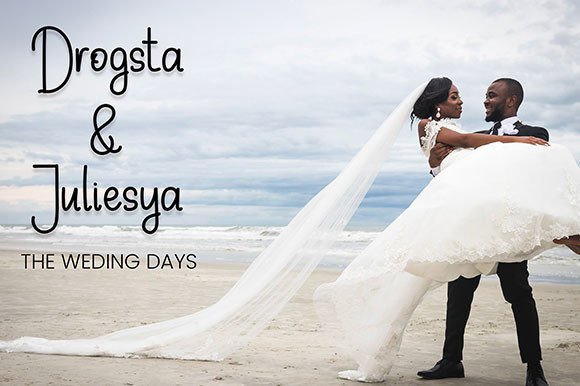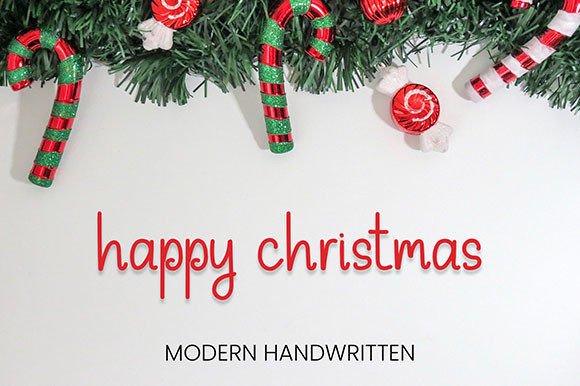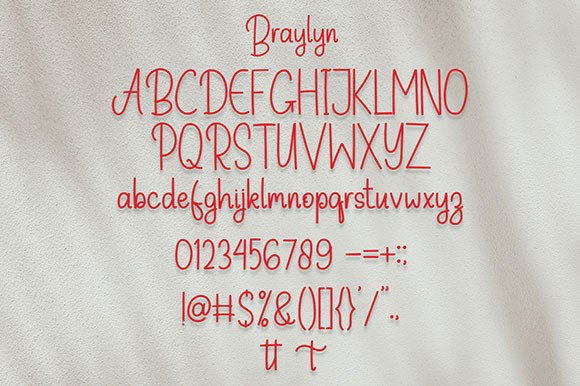
The Braylyn Font: A Casual and Neat Handwritten Script Font for All Occasions
An Honest Review of Braylyn
So, what makes Braylyn special? Here are some things I love about this font:
- ✨ Unique and Personal Touch: Braylyn has a distinct, handwritten feel that adds a personal touch to any design.
- ✅ Highly Versatile: Whether you’re working on crafts, digital design, presentations, or greeting cards, Braylyn adapts seamlessly.
- 💫 Elegant yet Casual: This font strikes the perfect balance between elegance and casualness, making it suitable for a wide range of projects.
- 📝 Easy to Read: Despite its handwritten nature, Braylyn is surprisingly easy to read, even at smaller sizes.
Of course, no font is perfect, and Braylyn has a few quirks:
- 🤔 Limited Formality: Braylyn’s casual nature might not make it the best choice for very formal or corporate projects.
- ⚠️ Glyph Limitations: While Braylyn has a range of glyphs, it might not have every special character you need.
- Experiment with OpenType features, such as ligatures and stylistic alternates, to add more flair to your text.
- Take advantage of OpenType features, such as glyphs and stylistic alternates, to add more depth to your design.
The Backstory of Braylyn
Braylyn was designed with the intention of creating a font that is both casual and elegant. The designer aimed to craft a font that would be perfect for everyday use, from crafting and digital design to presentations and greeting cards. The result is a font that is both versatile and charming.
| Font Name | Braylyn Font |
| Author | chatype studio |
| What makes Braylyn unique? | Braylyn’s unique blend of casualness and elegance makes it stand out from other script fonts. |
| Is Braylyn suitable for body text? | While Braylyn is easy to read, it’s best suited for headings and titles rather than body text. |